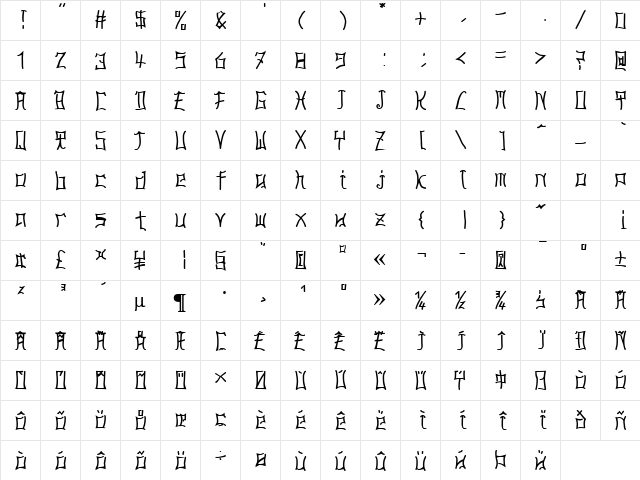
PseudoNippon Becker Bold
Design Context for PseudoNippon Becker Typeface
PseudoNippon Becker is a composed and adaptable typeface that performs quietly and consistently across a wide range of design contexts. The heavy weight commands attention and anchors typographic hierarchies.